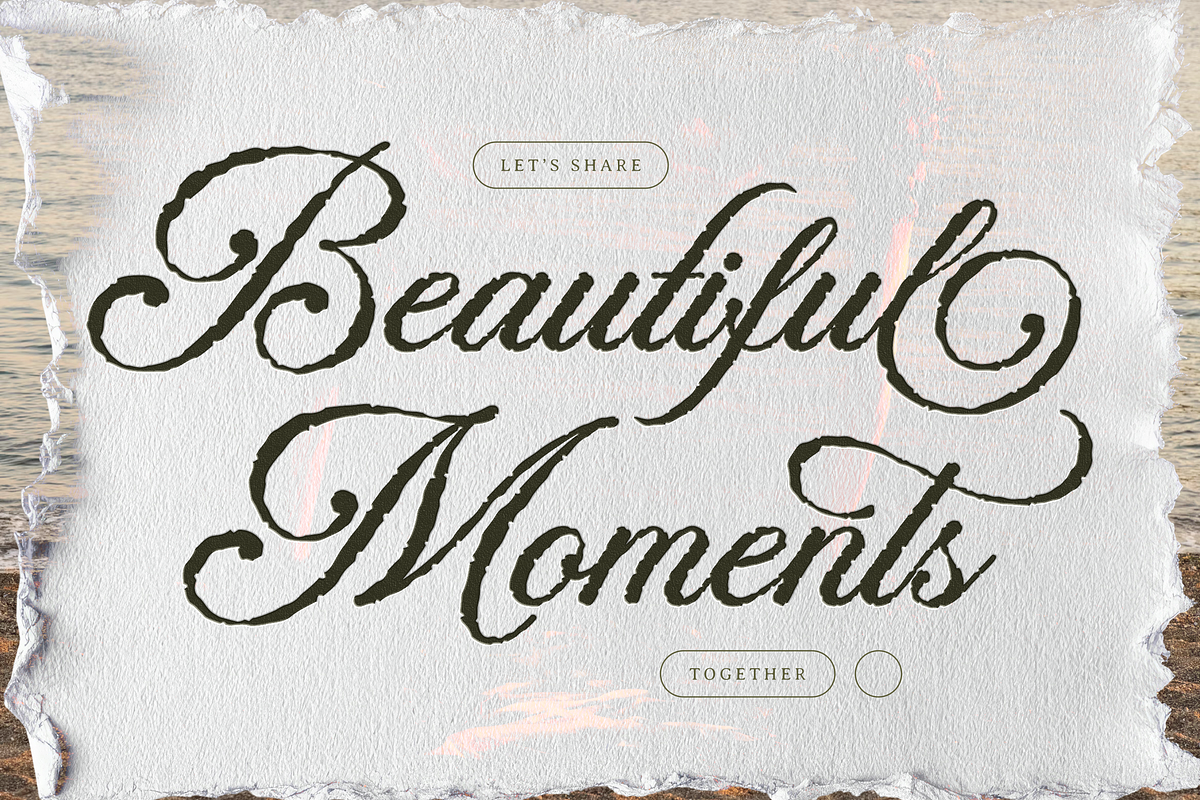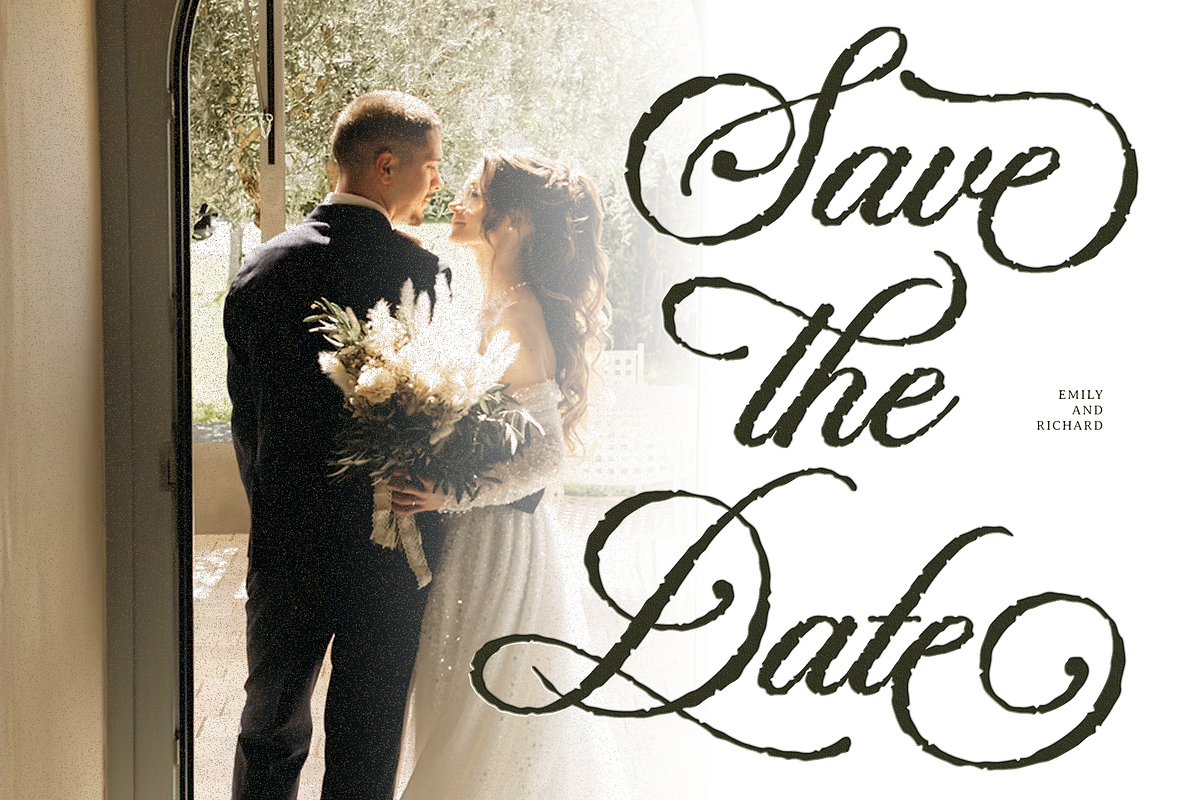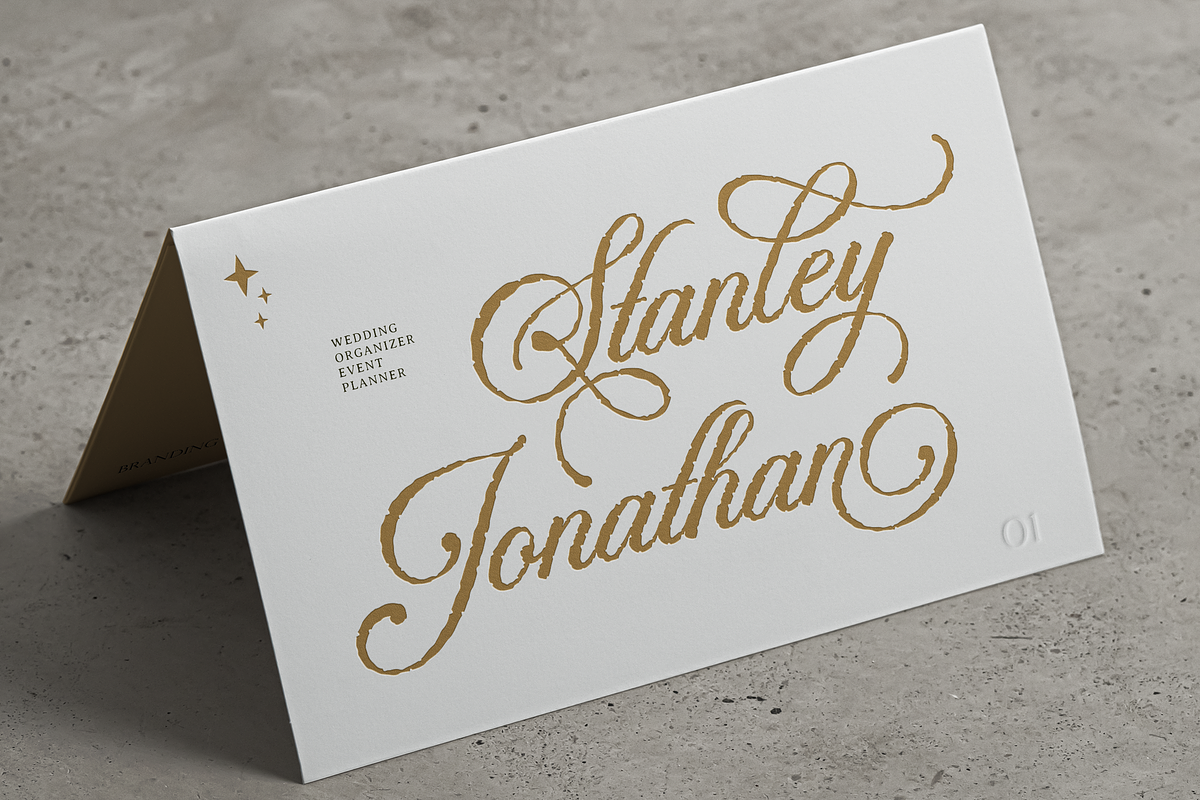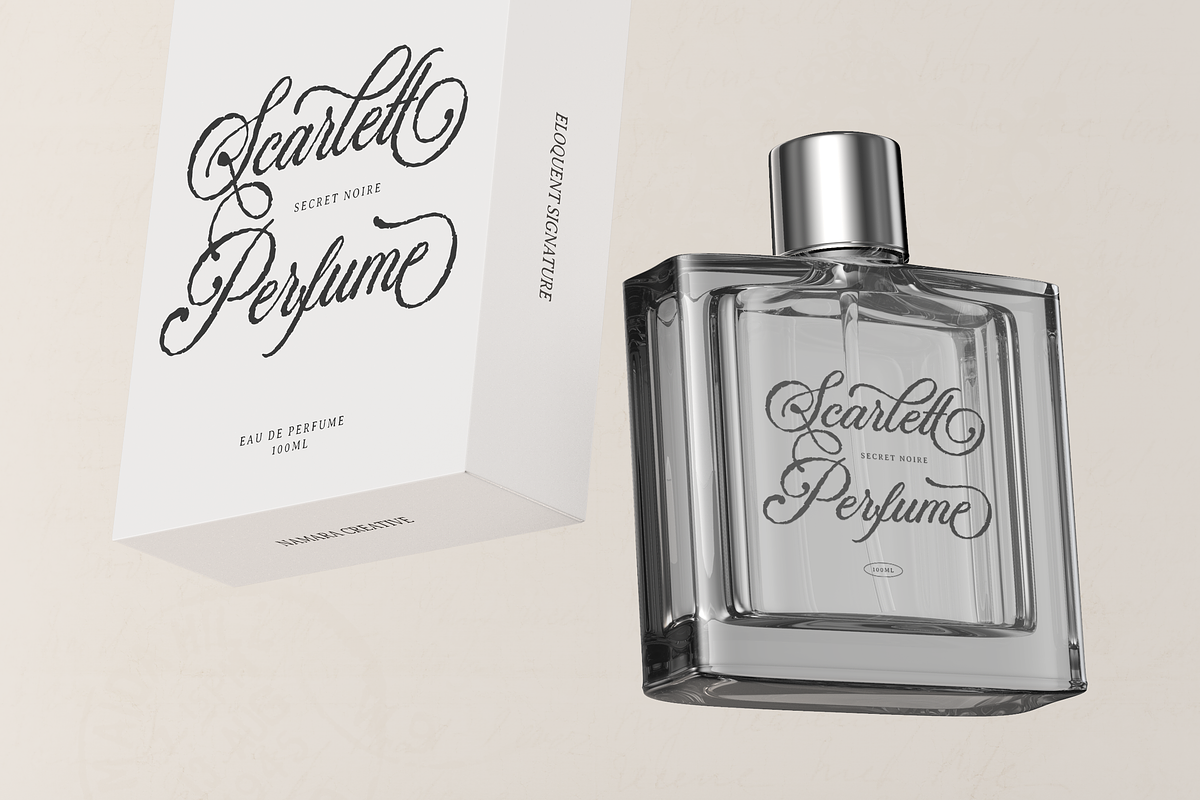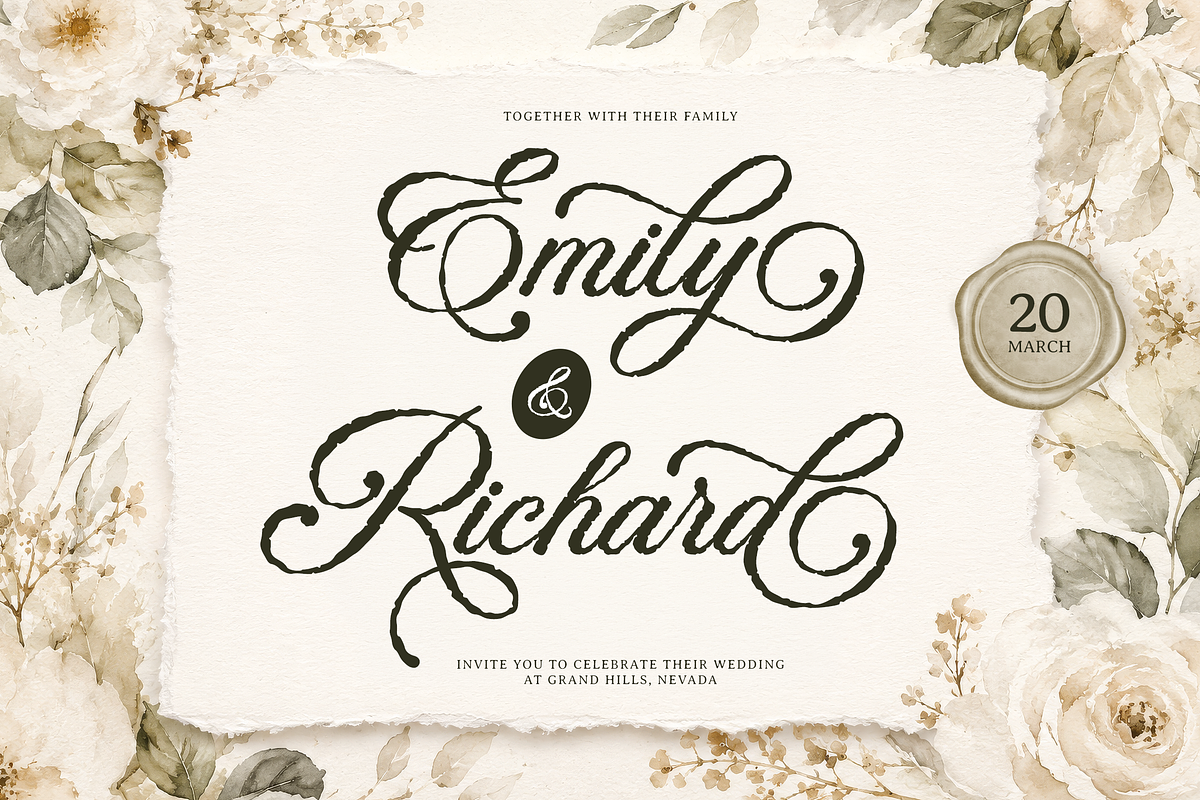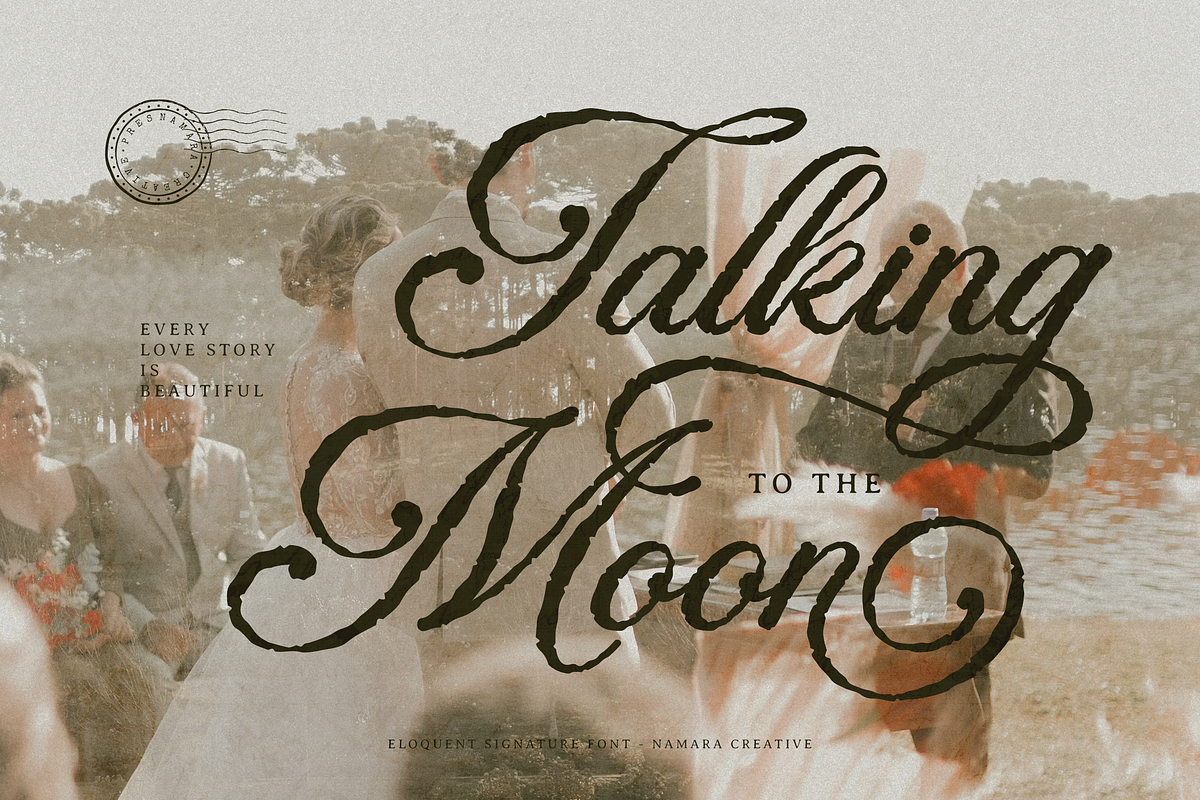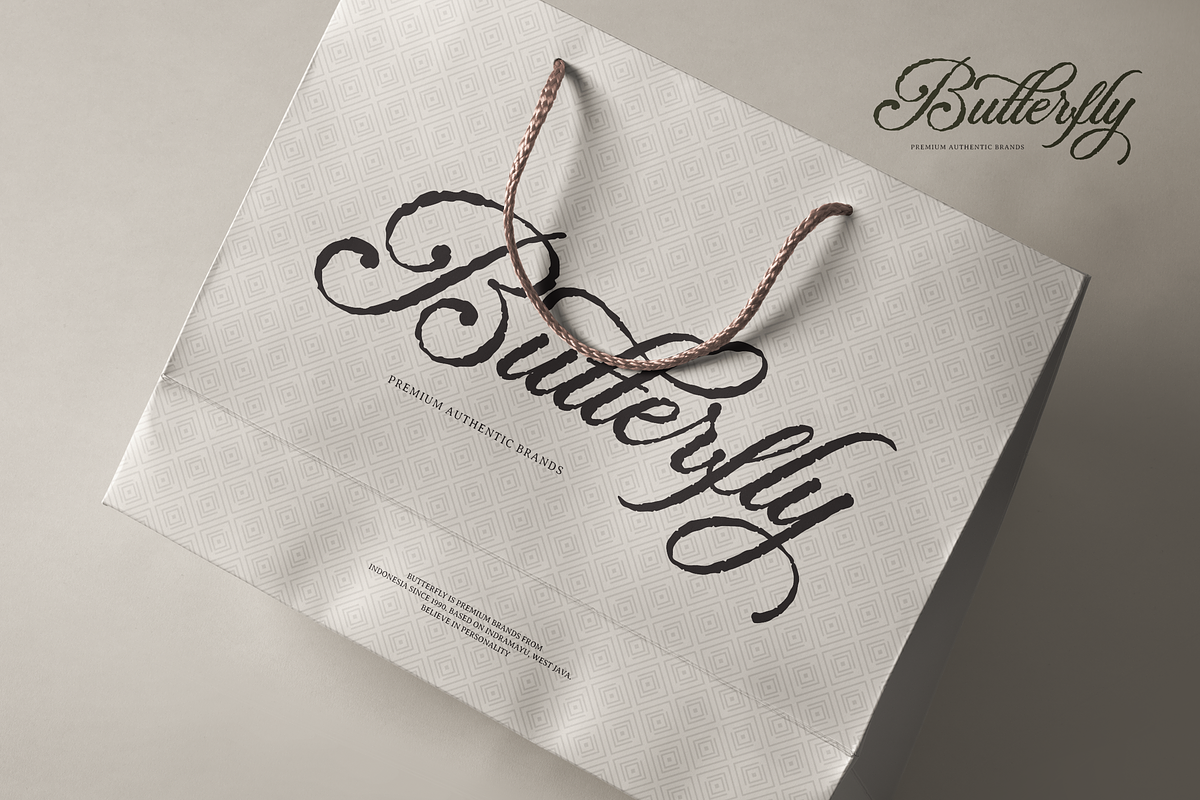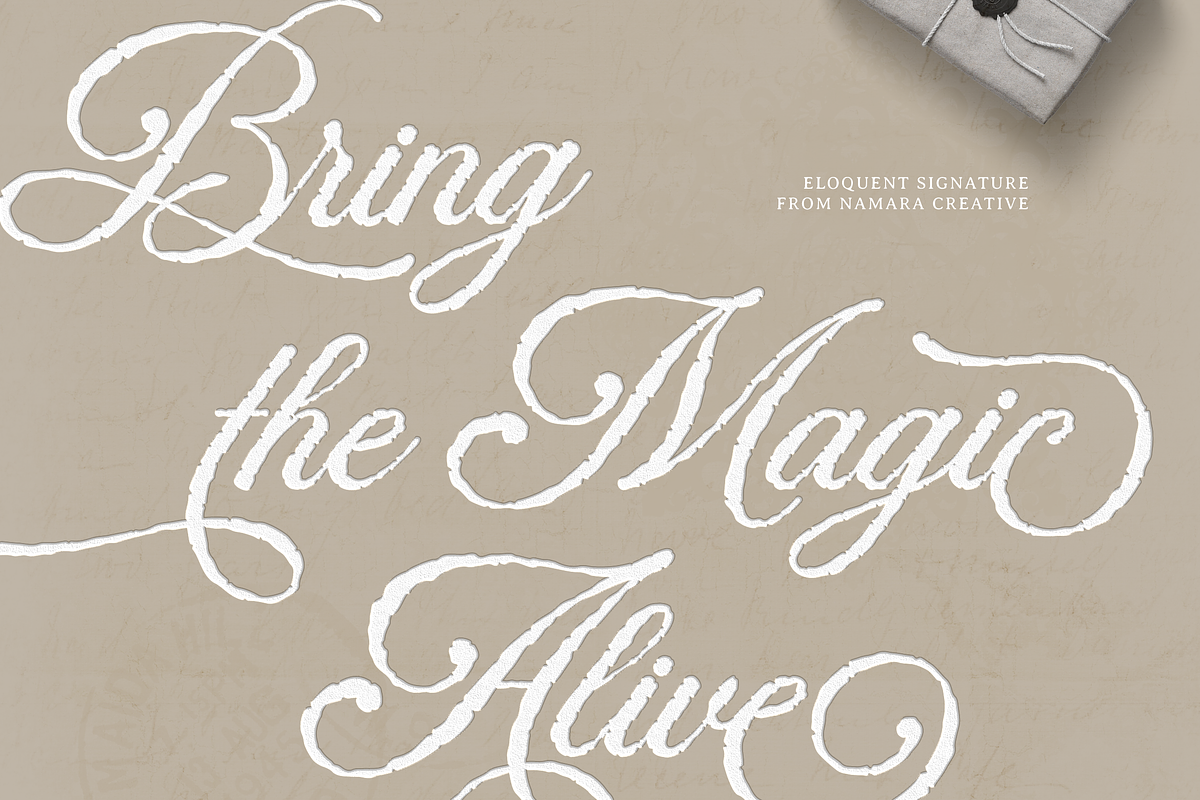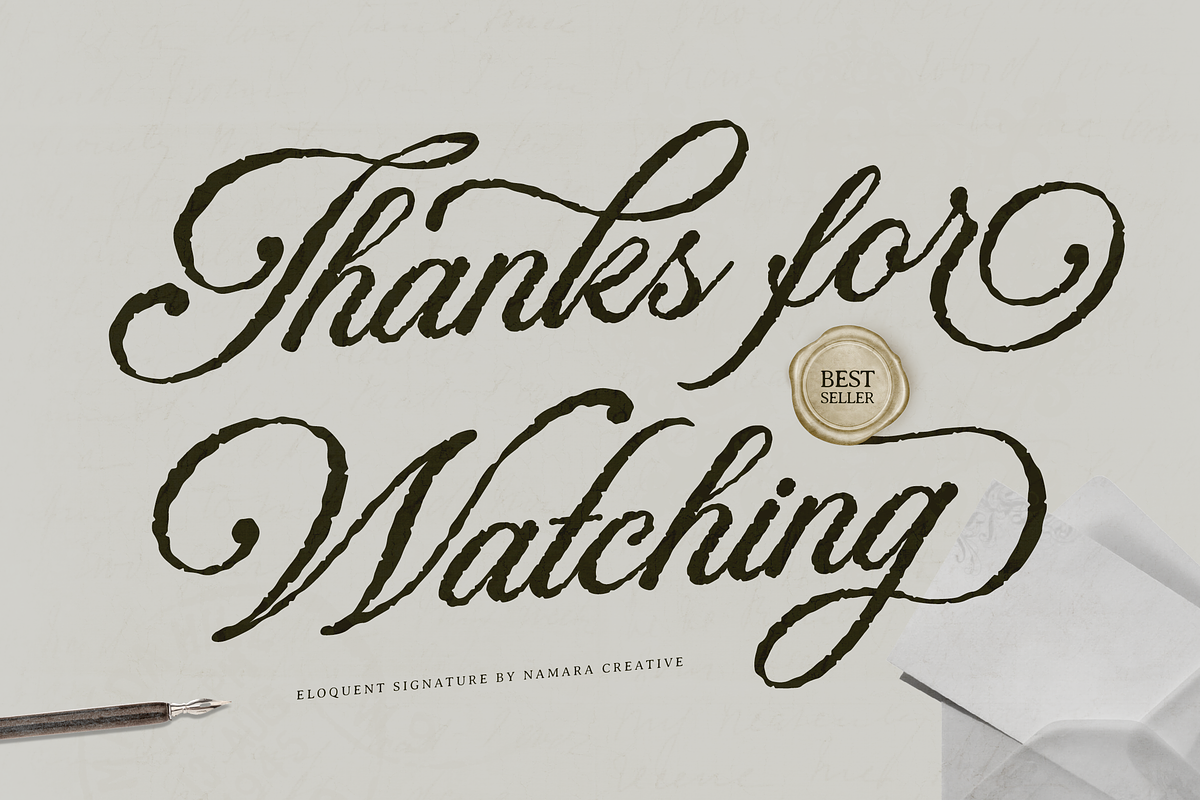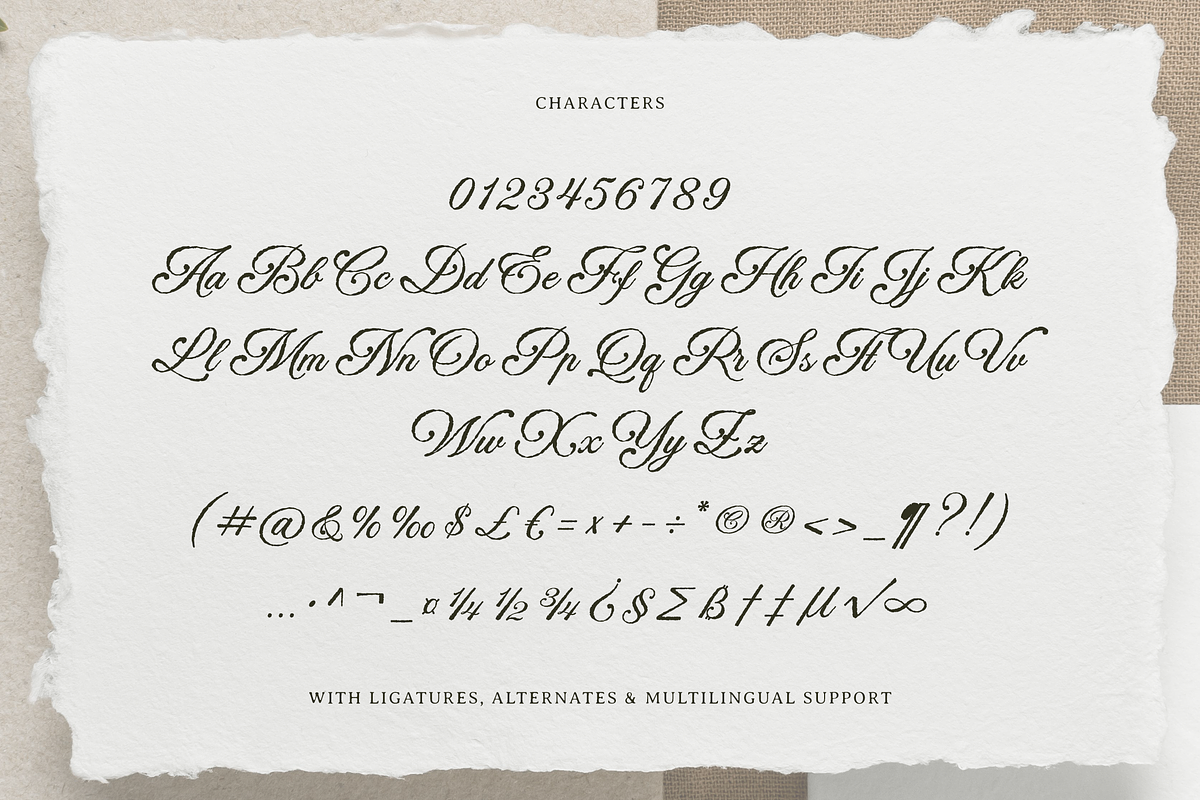
Eloquent Signature-Luxury Script
Eloquent Signature is a elegant script font designed for modern romantics and refined brands. Featuring flowing calligraphic strokes, dramatic swashes, elegant ligatures, and stylistic alternates, this typeface helps transform ordinary words into unforgettable statements.
Whether you’re designing wedding invitations, premium packaging, social media content, or boutique identities, Eloquent Signature delivers sophistication with effortless beauty.
Full Character Set : Uppercase and lowercase, numerals and punctuations.
Ton of Alternates : Additional glyph options for creative flexibility.
Multilingual Support : Extended Latin character set covers Western European languages.
Bring elegance to every word with Eloquent Signature elegant script font. Designed with intention, crafted for meaningful moments.